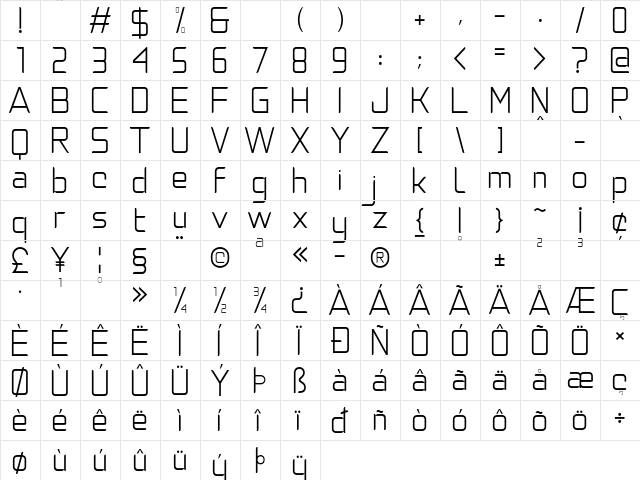
Natalisa Light Demo Light Font Preview
Natalisa Light Demo Light
Natalisa Light Demo Light Font Details
| Designer | Sabrcreative Studio |
Design Context for Natalisa Light Demo Typeface
Natalisa Light Demo takes a measured approach to typography — its balanced proportions and neutral character make it a reliable workhorse for both digital and print work. The delicate stroke weight brings airiness and refinement to layouts.